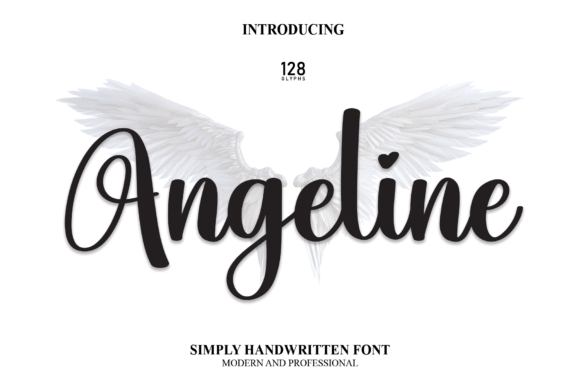
Discover the Elegance of Angeline Font: A Timeless Choice for Designers and Crafters
Are you on the hunt for a font that exudes elegance and sophistication? Look no further than the Angeline Font. This beautiful, flowing handwritten font is characterized by an elegant touch, making it perfect for a wide range of projects. From crafting stunning designs to adding a touch of class to your digital creations, Angeline is sure to captivate your audience with its incredibly distinct and timeless style.
The Unique Charm of Angeline Font
Angeline Font boasts a unique charm that sets it apart from other fonts. Its flowing lines and elegant curves create a sense of movement and fluidity, making it ideal for designs that require a touch of sophistication. Whether you’re working on a logo, branding materials, or digital products, Angeline’s distinctive style is sure to make your project stand out.
Key Features of Angeline Font
- Elegant and Refined: Angeline’s elegant touch adds a level of refinement to any design, making it perfect for projects that require a sophisticated look.
- Flowing Handwritten Style: The font’s flowing handwritten style creates a sense of movement and fluidity, adding visual interest to your designs.
- Distinct and Timeless: Angeline’s incredibly distinct and timeless style ensures that your designs will remain relevant for years to come.
- Versatile: Angeline is a versatile font that can be used for a wide range of projects, from digital products to print materials.
Angeline Font is a perfect choice for designers and crafters who want to add a touch of elegance to their projects. Whether you’re working on a client’s project or creating something for your own brand, Angeline’s unique style is sure to impress. From creating stunning logos and branding materials to crafting beautiful digital products, Angeline is the perfect font for anyone who wants to create spectacular designs.
Use Cases for Angeline Font
Angeline Font can be used for a wide range of projects, including:
- Logos and Branding: Use Angeline to create stunning logos and branding materials that exude elegance and sophistication.
- Digital Products: Add a touch of class to your digital products, such as ebooks, courses, and software, with Angeline’s elegant font.
- Print Materials: Use Angeline to create beautiful print materials, such as business cards, brochures, and posters.
- Web Design: Add a touch of elegance to your website with Angeline’s flowing handwritten font.
In conclusion, Angeline Font is a timeless and elegant font that is perfect for designers and crafters who want to add a touch of sophistication to their projects. With its incredibly distinct and timeless style, Angeline is sure to captivate your audience and make your designs stand out. Whether you’re working on a logo, branding materials, or digital products, Angeline is the perfect choice for anyone who wants to create spectacular designs.